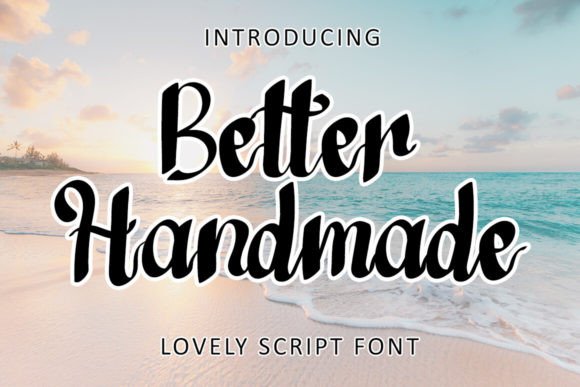
Immerse yourself in the realm of Mr.Soon Design's Better Handmade Font, a captivating script typeface that captivates with its timeless elegance and undeniable charm. Designed to evoke the beauty of hand-lettering, this font family exudes a genuine, personal touch that will add a touch of sophistication to your creative endeavors.
Unleash your creativity with Better Handmade, a font that offers a diverse range of weights and styles, allowing you to craft a myriad of design elements with effortless ease. Craft eye-catching headlines that command attention, compose impactful body text that captivates readers, design unique logos that leave a lasting impression, and create branding materials that radiate professionalism. The possibilities are endless with Better Handmade as your design companion.
With Better Handmade, you'll discover a font that seamlessly blends aesthetics and functionality. Its meticulous design ensures legibility and readability, making it an ideal choice for both digital and print applications. Whether you're crafting elegant wedding invitations, composing heartfelt love letters, or creating captivating social media posts, Better Handmade will elevate your words and make them shine.
Embrace the allure of Better Handmade, a font that captures the essence of romance and heartfelt emotions. Its graceful curves and delicate strokes evoke a sense of nostalgia, making it the perfect choice for wedding invitations, save-the-date cards, and other special occasion stationery. Let Better Handmade be your creative partner as you weave tales of love and joy through your designs.